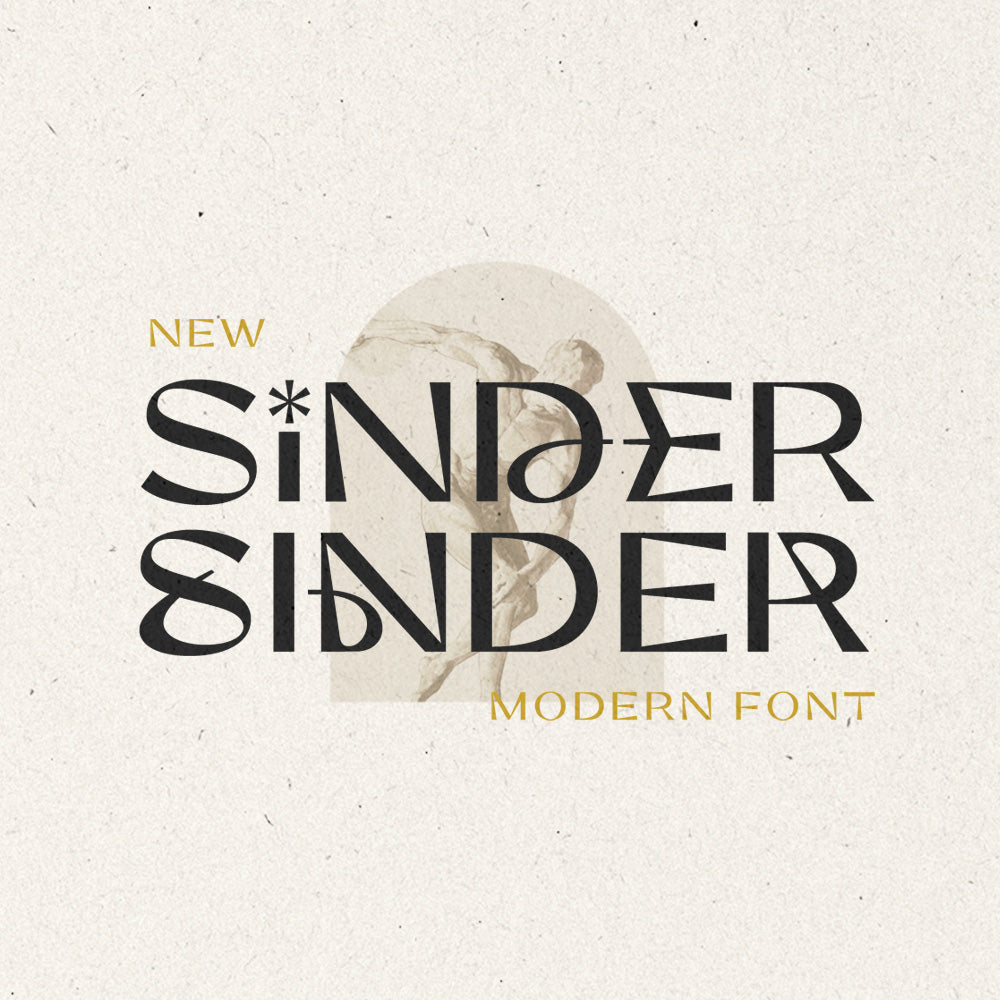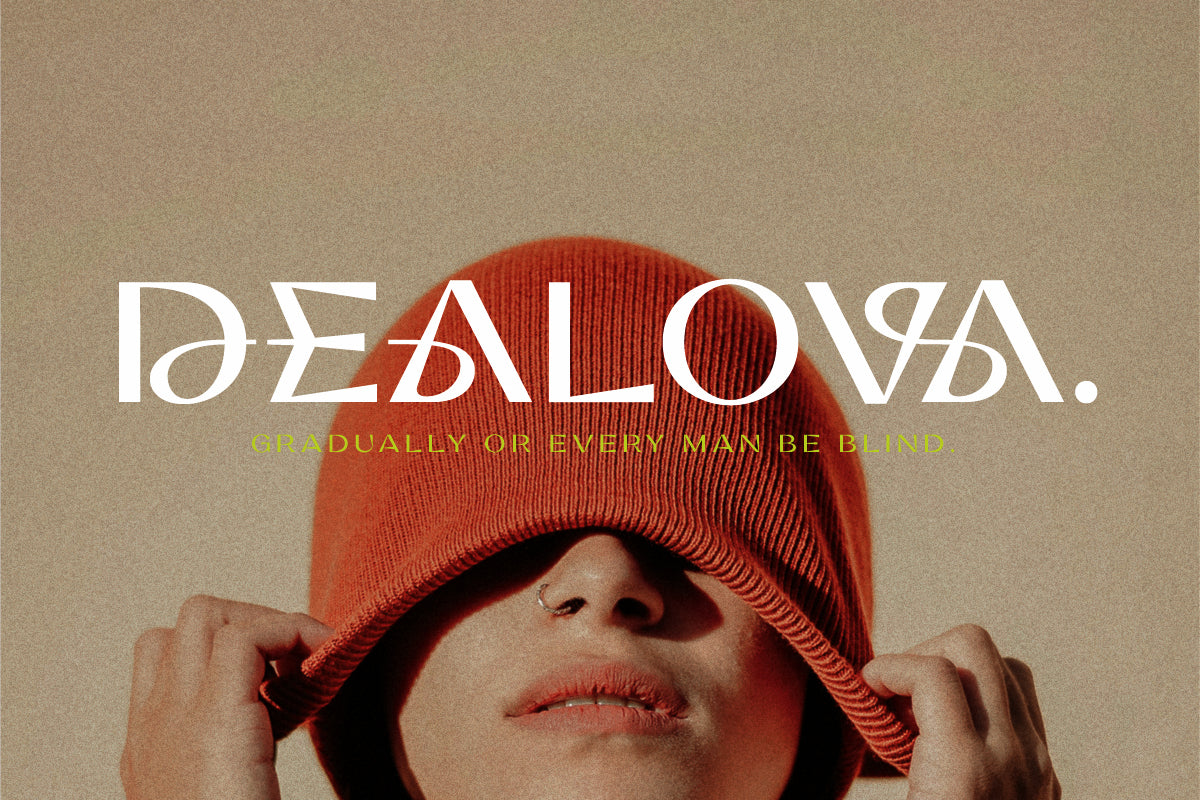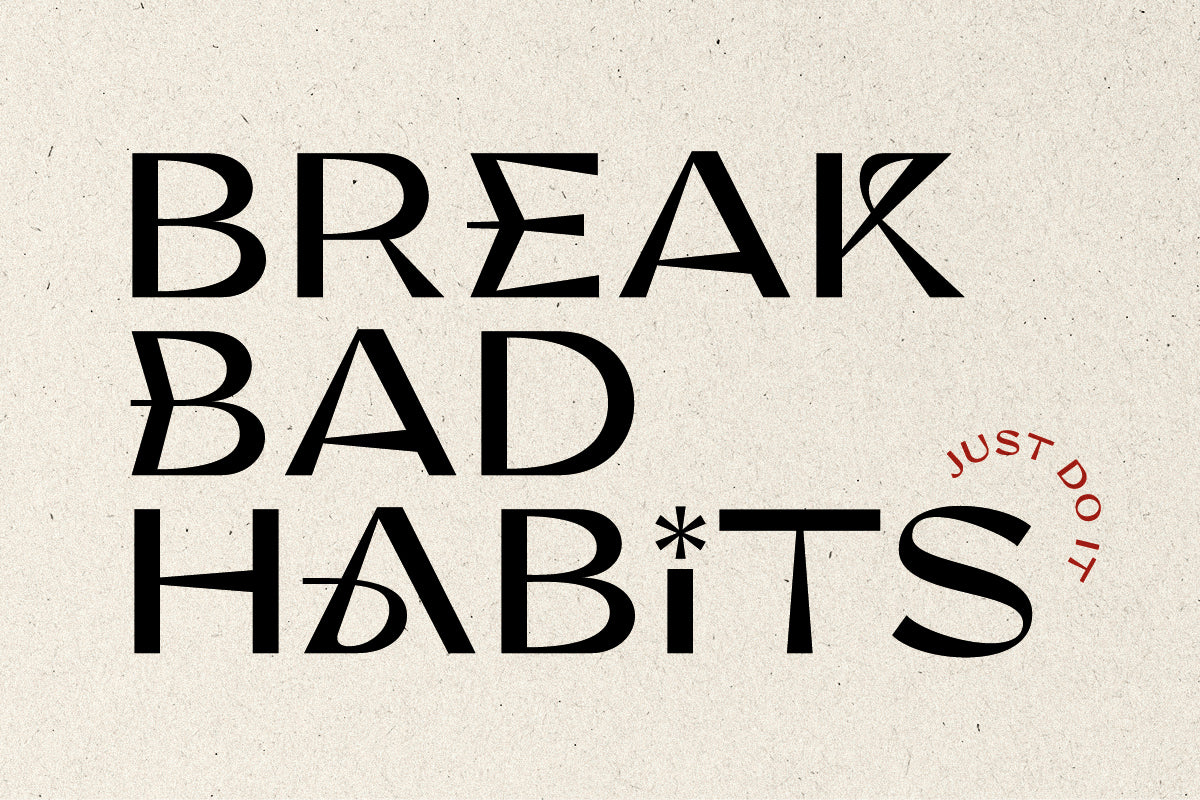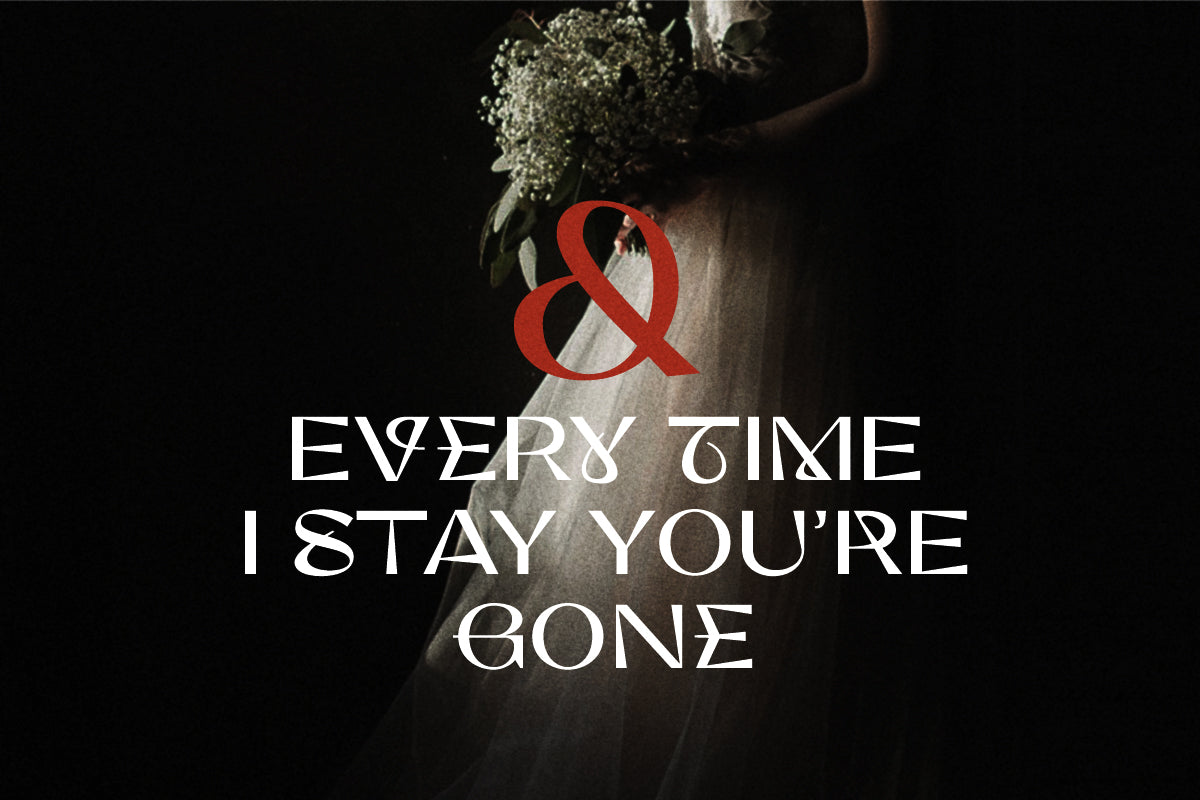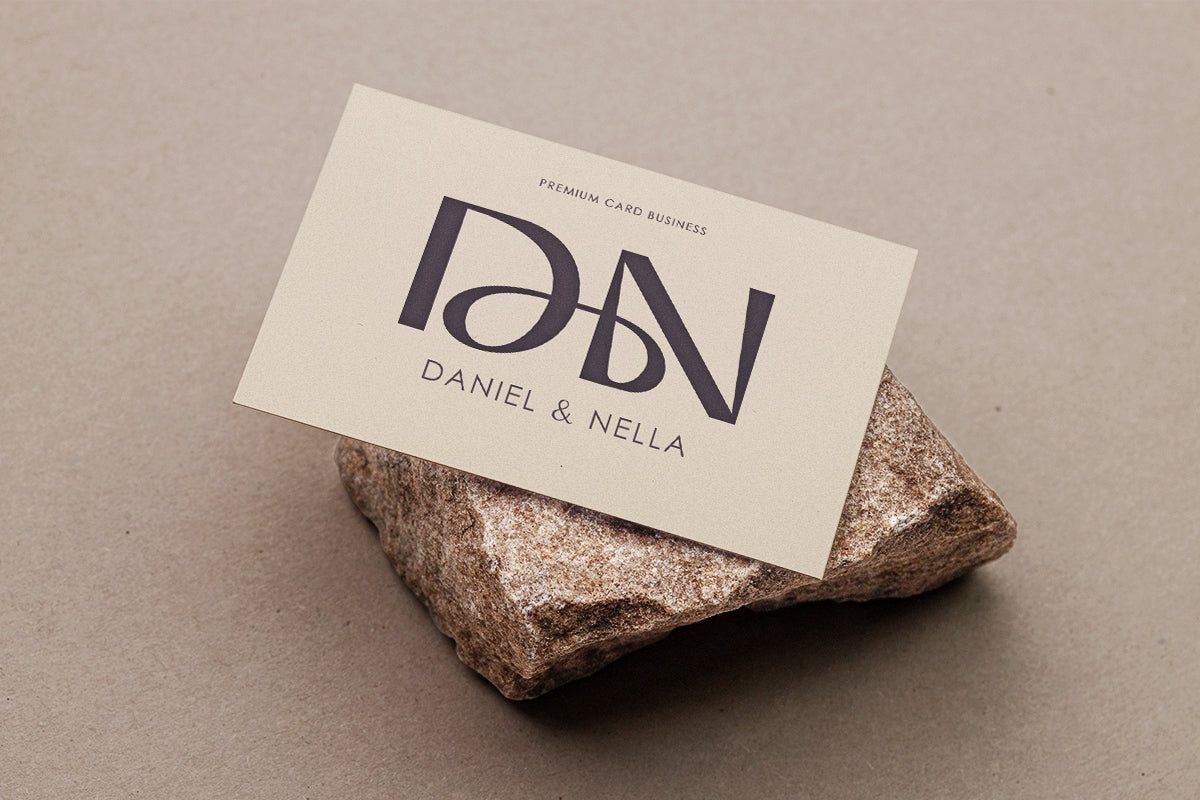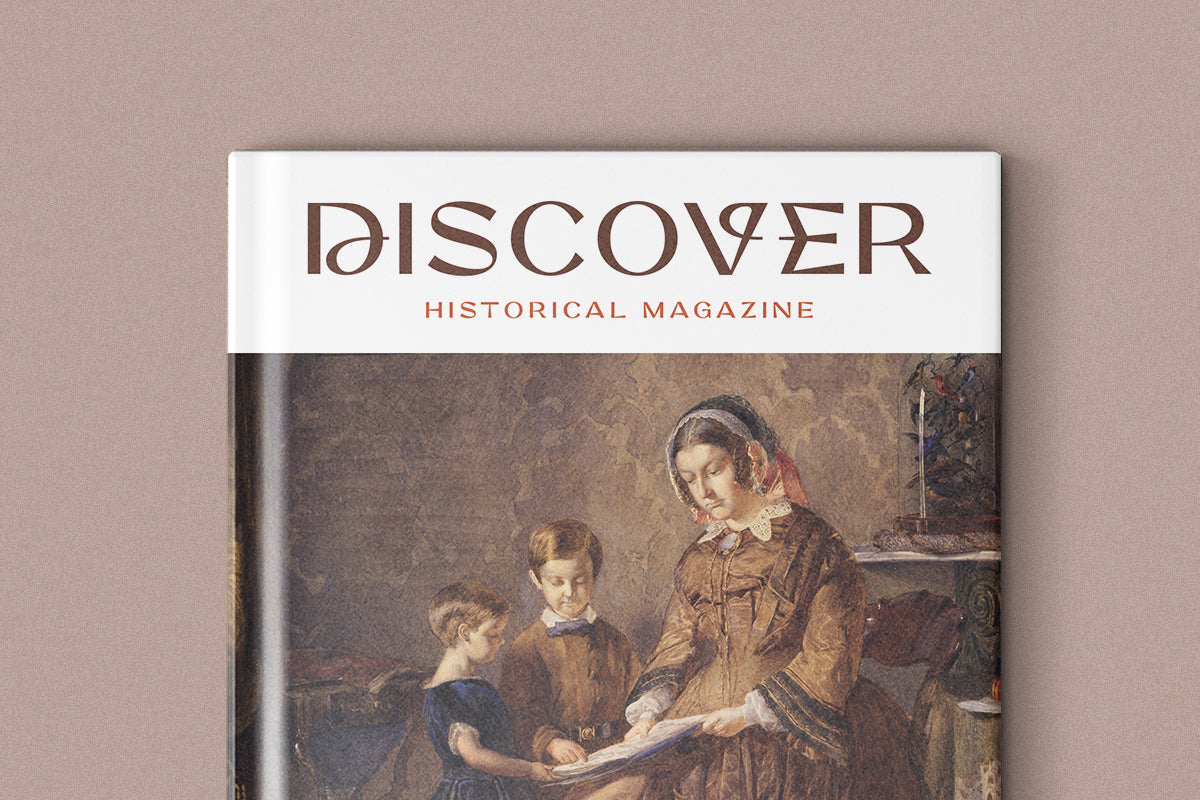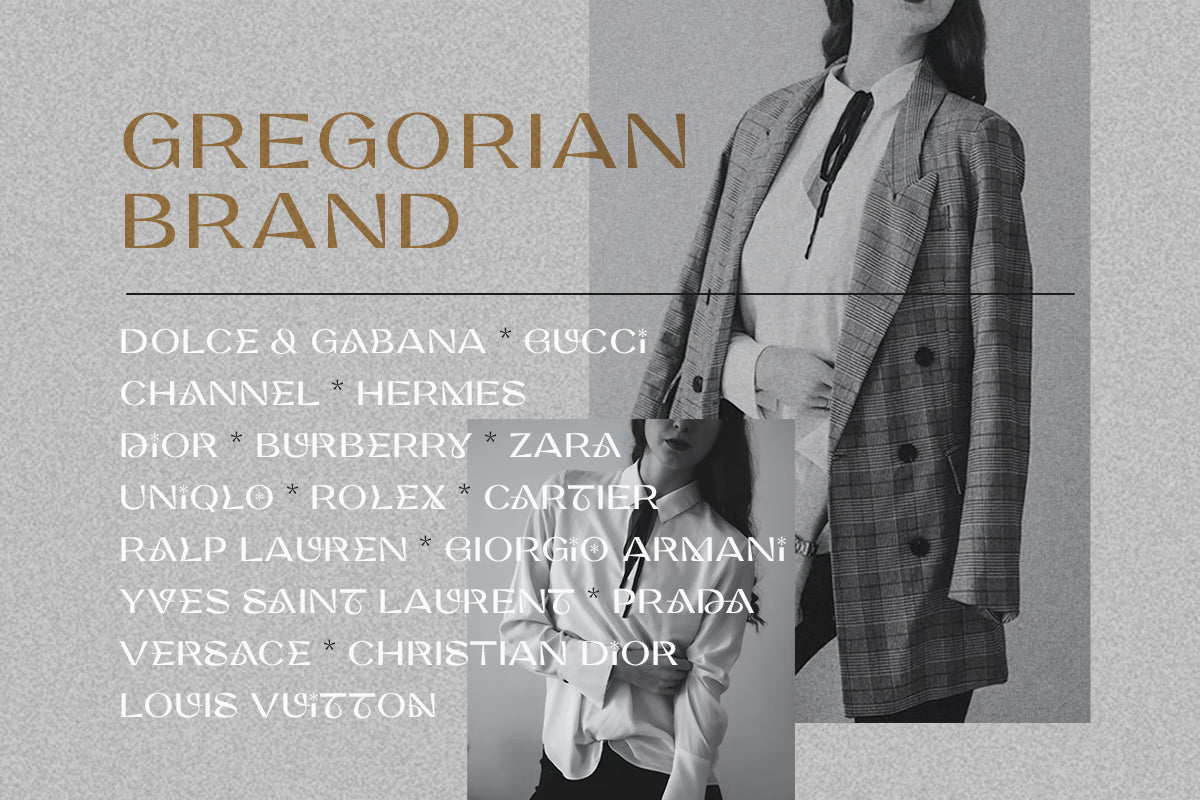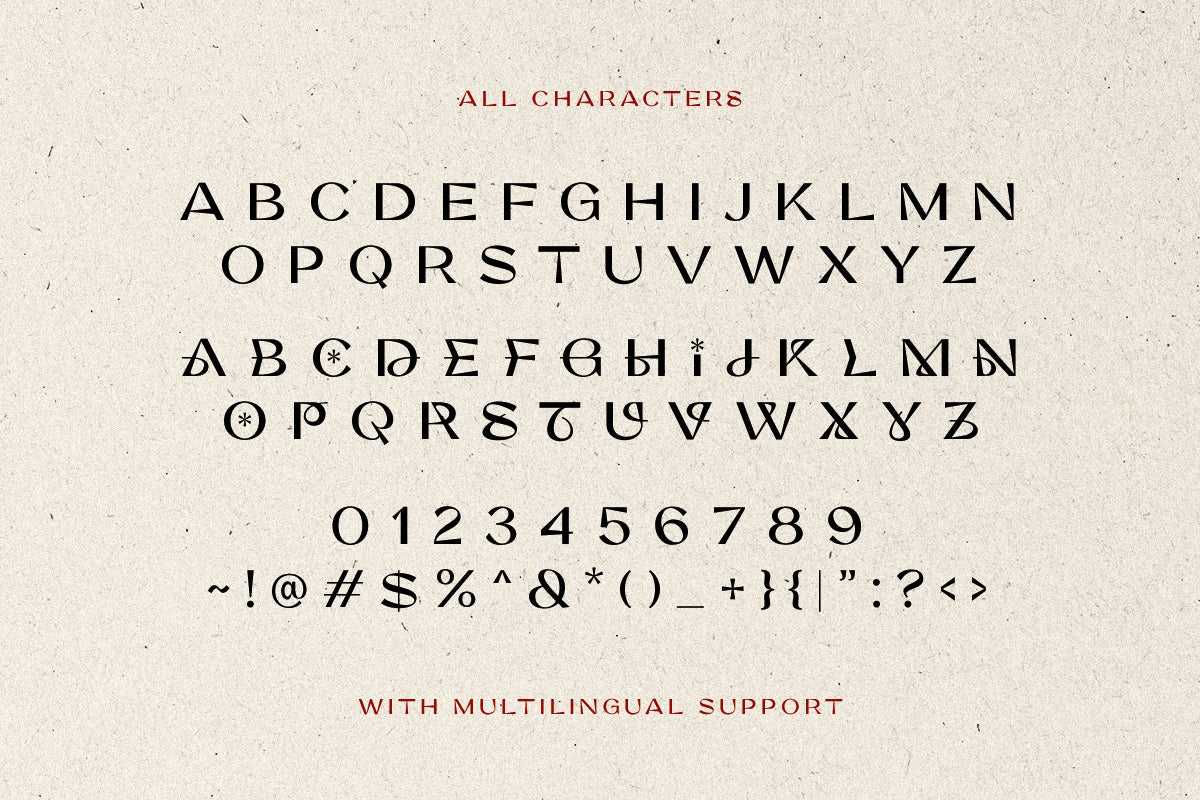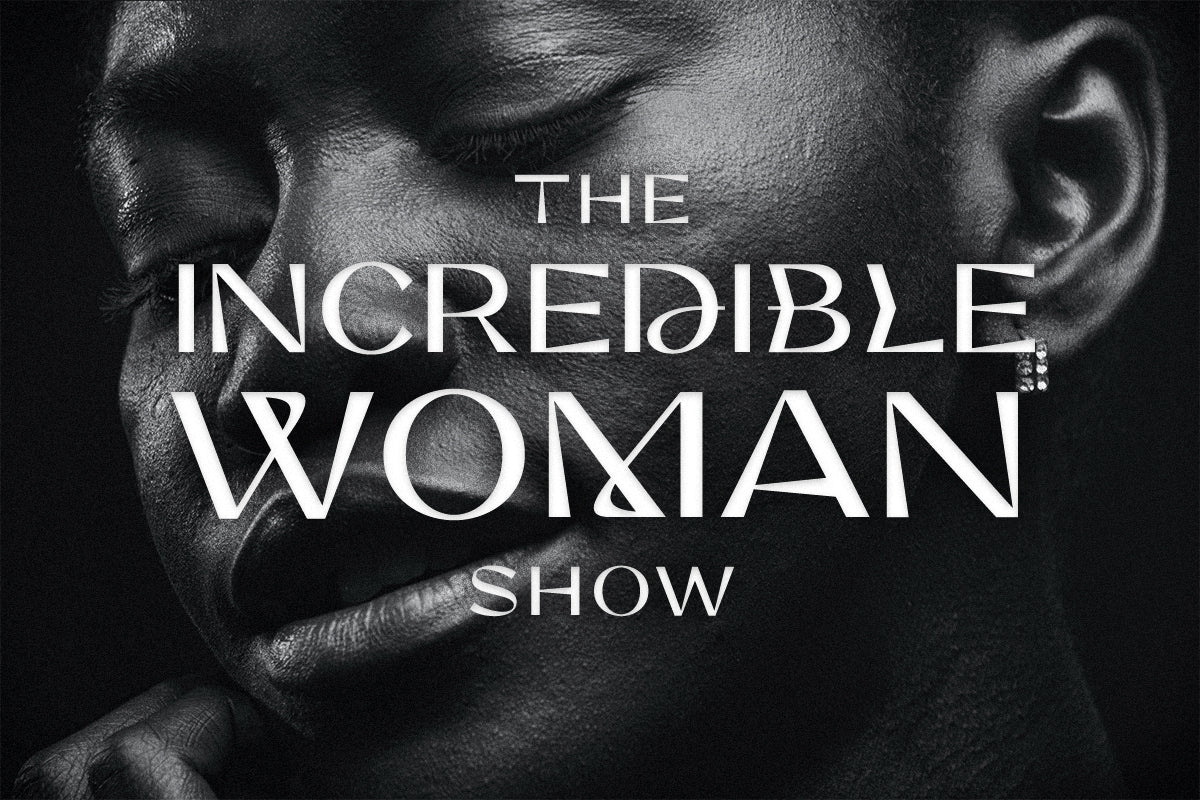
Sinder - Modern Font
Sinder is a modern and stylish sans based font. You can find the uniques from the forms in lowercase. You can combine the lowercase and uppercase to get more stunning and approachable design. You can use this font for poster, logotype, branding and get stunning and unusual looks. This font also support multilingual!
Sinder is a modern sans-serif font featuring unique lowercase forms that can be combined with uppercase letters for versatile design options. It supports multilingual characters and is suitable for various applications, including branding and logotypes.